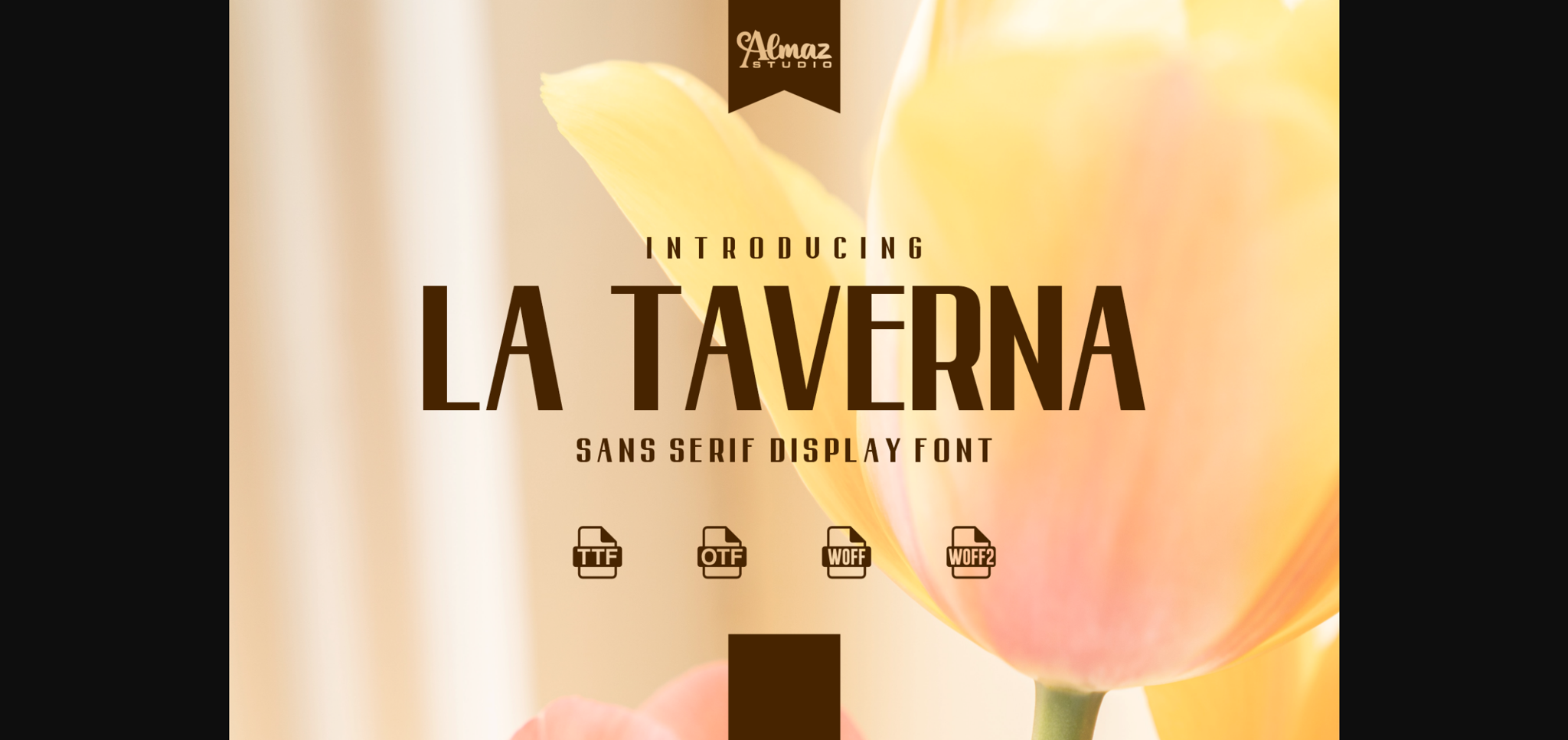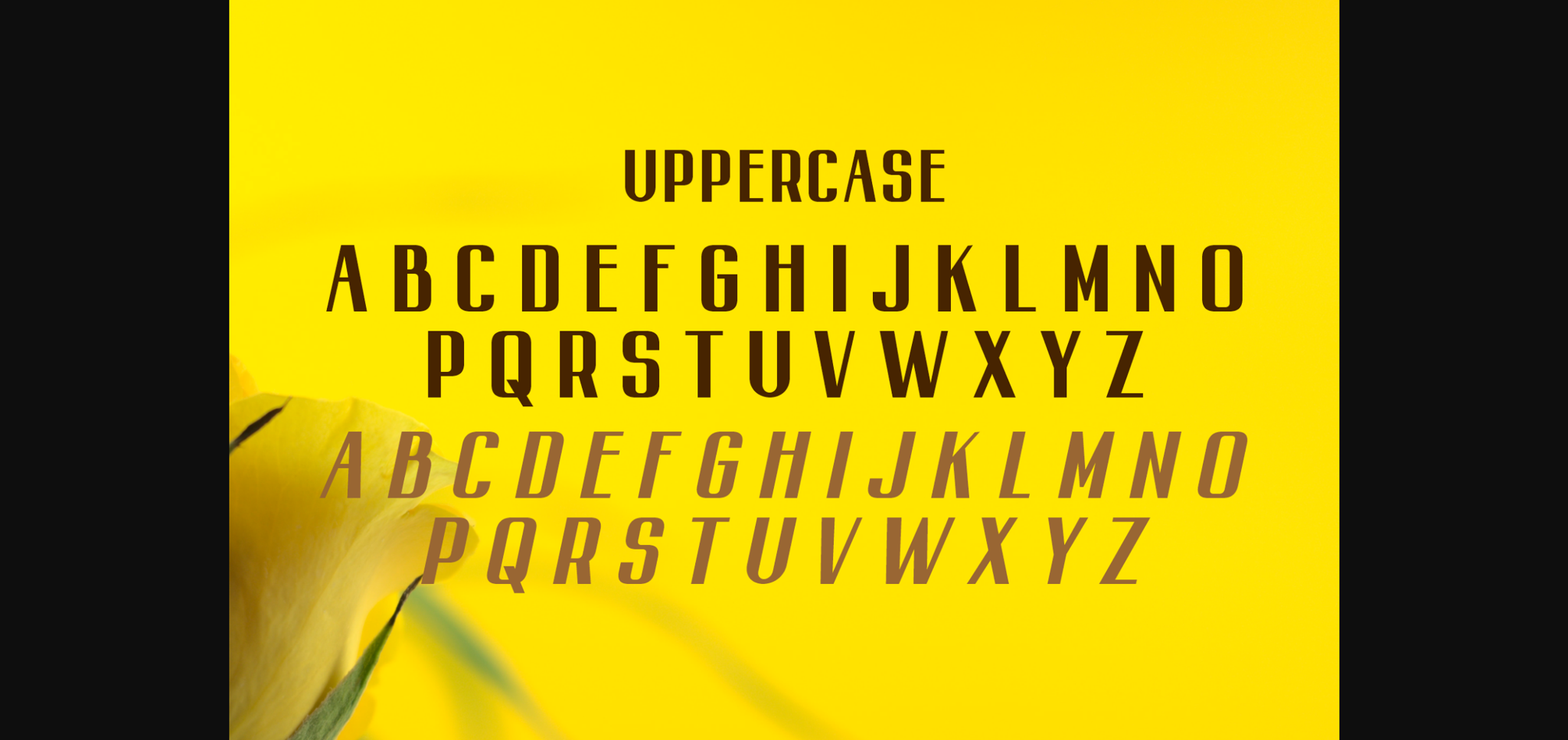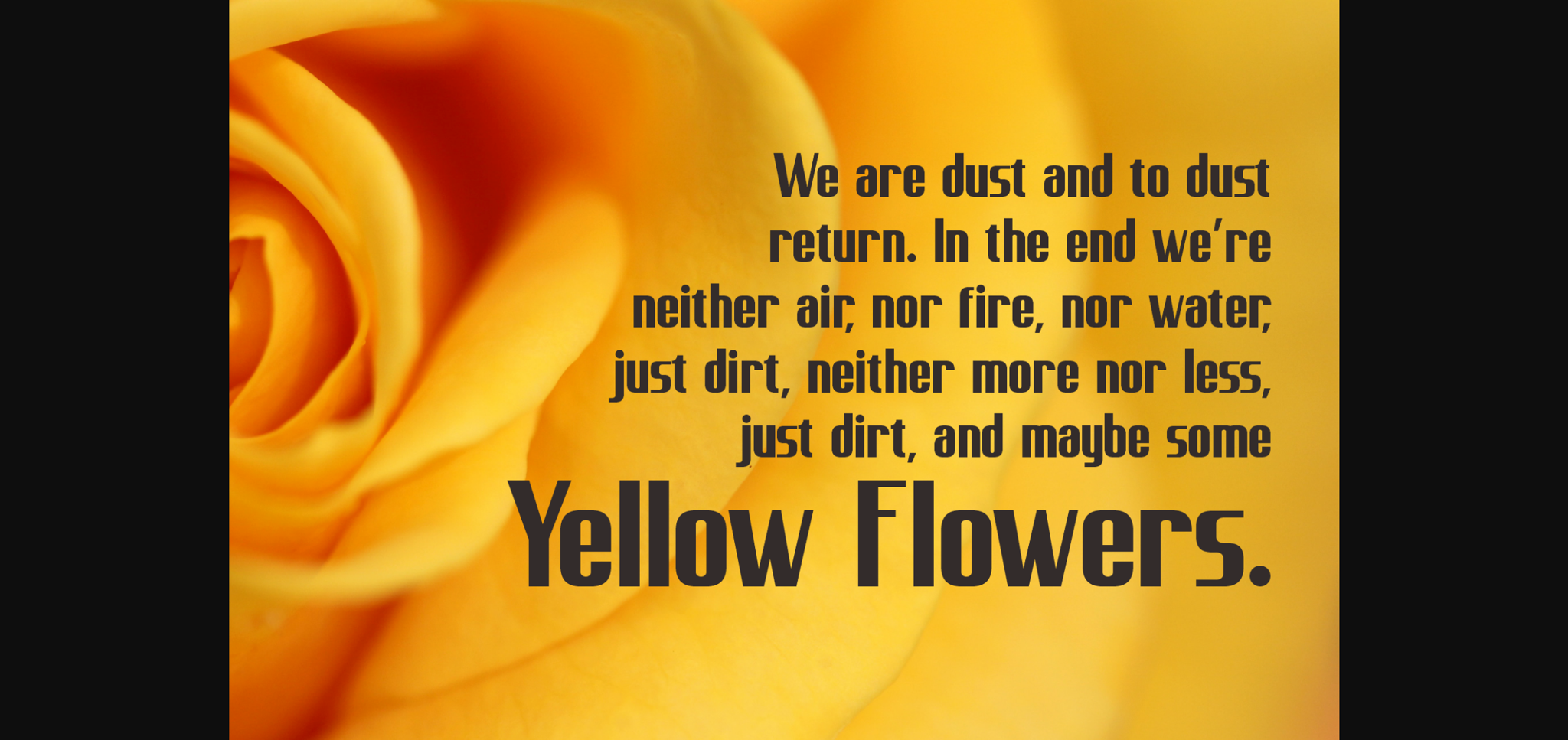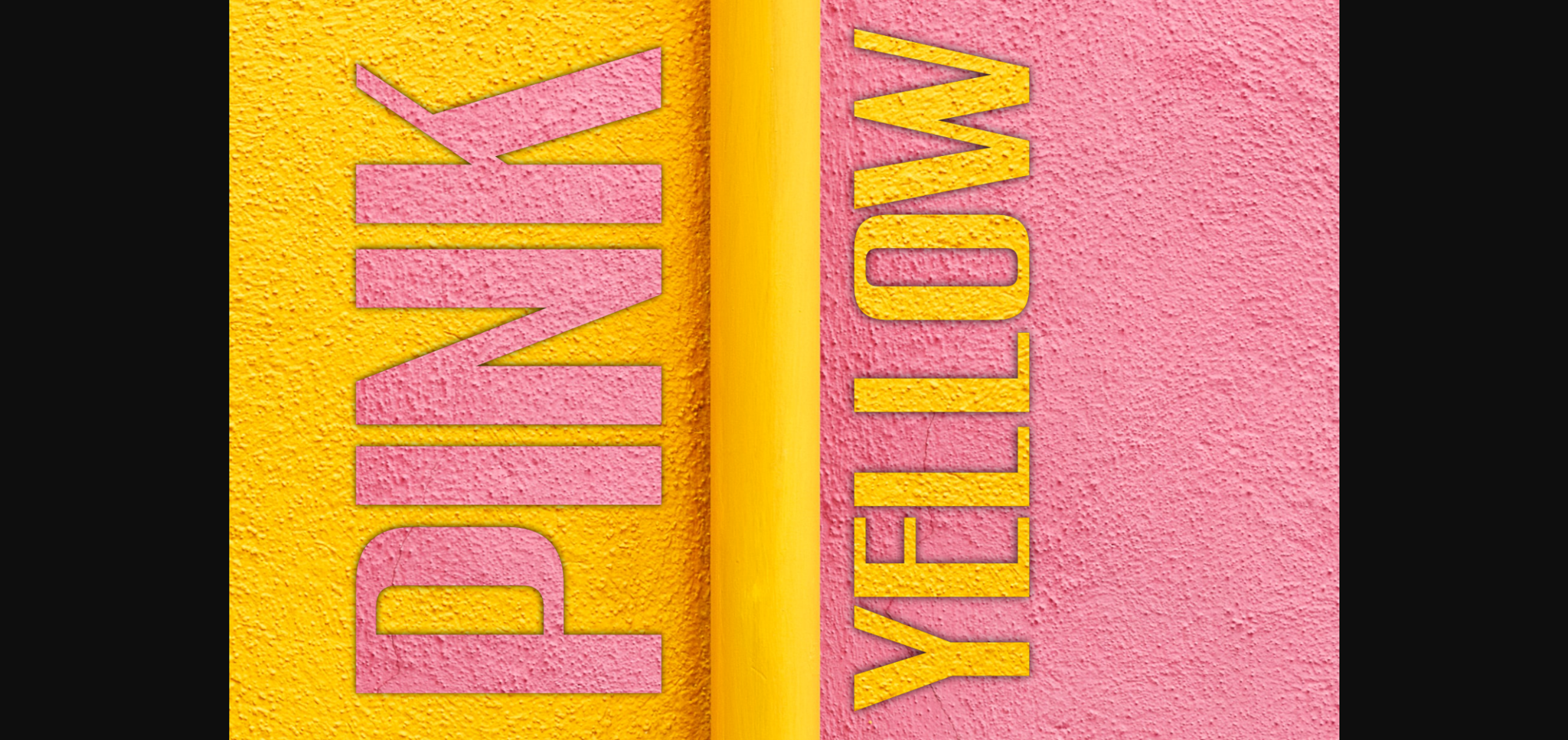
About La Taverna Font
La Taverna is an elegant and stylish sans serif font. Add it confidently to your creative ideas and you will be amazed by the outcome generated!